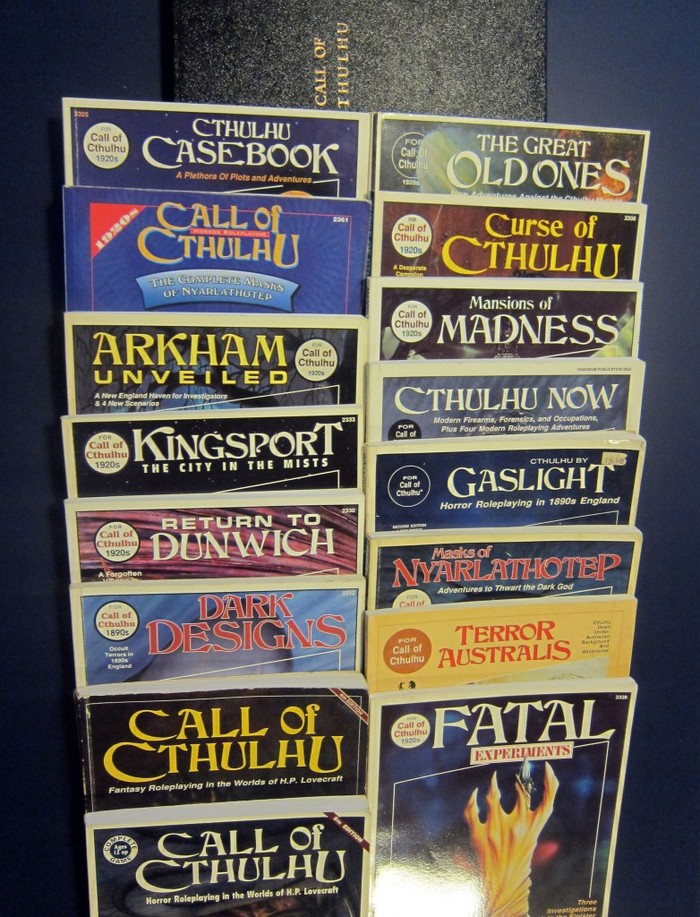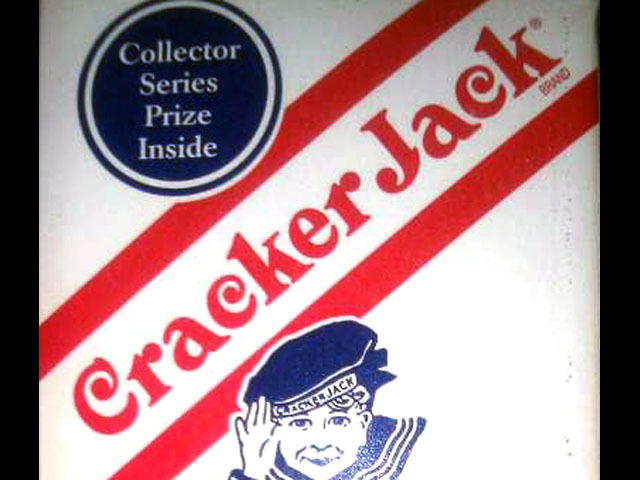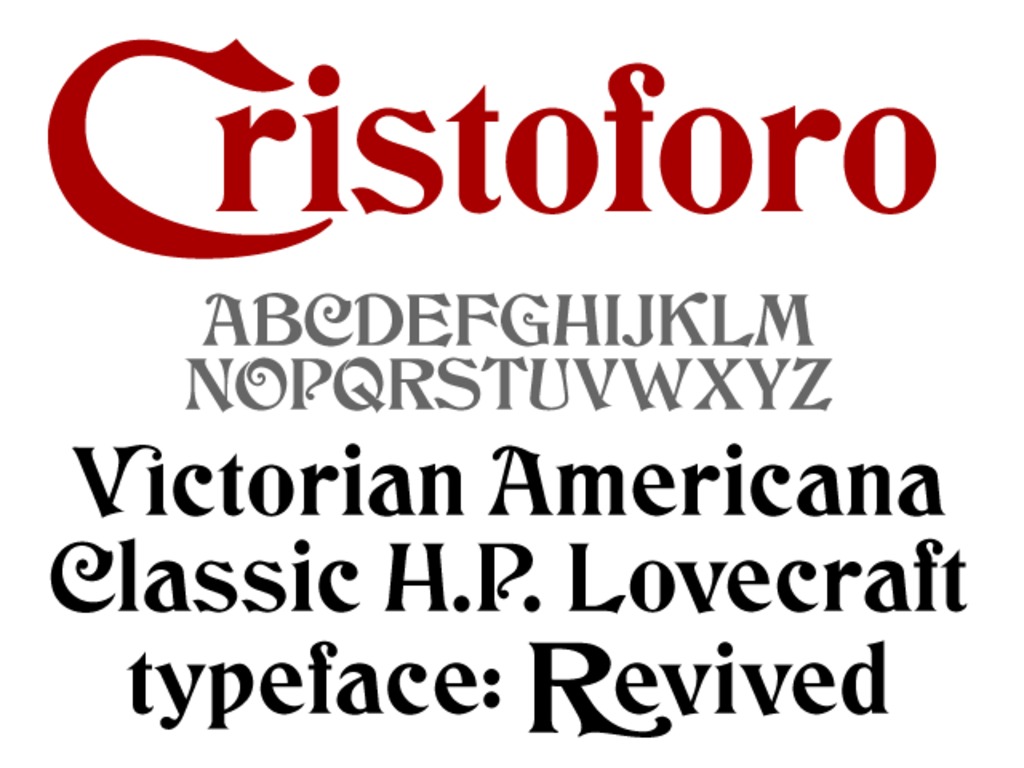
Revival of Ihlenburg's Columbus (1892) and American Italic (1902) typefaces, never before made into quality digital fonts.
Cristoforo is my name for a pair of new fonts reviving classic American-Victorian art nouveau metal types by Hermann Ihlenburg: Columbus (1892), Columbus Initials (upright swash capitals) and the italic companion American Italic (1902). Cristoforo Regular will have some 300+ glyphs. You can see specimens of the source typefaces on my blog.
Why is Cristoforo needed?
Columbus and American Italic were classic typefaces by a master craftsman. But there's never been a decent digital version of these fonts. With Cristoforo, I want to make a pair of professional quality digital fonts, complete both in standard character coverage and in having many assorted alternate letter shapes. (For example, the graphic above shows the swash alternate versions of C, V and R originally available in Columbus Initials.)
H.P. Lovecraft & Call of Cthulhu
Cristoforo has a huge history here. Its predecessor, Columbus, was the typeface used to create the logo for the Call of Cthulhu roleplaying game, inspired by the horror fiction of H.P. Lovecraft. The Call of Cthulhu RPG first appeared in 1981, and for over a decade Columbus appeared on the covers of not only the game rulebook, but also a couple of dozen supplemental books and adventures. After falling out of use on supplements in the 1990s, it has still continued to be the primary game logo to the present day, with only a couple of brief interruptions. Thus Columbus has an iconic status among many fans of Call of Cthulhu and/or H.P. Lovecraft. The game introduced many to Lovecraft’s fiction. The Call of Cthulhu campaign adventure Masks of Nyarlathotep, which I designed most of the “clues” for, remains the highest-rated campaign or adventure ever published for any role-playing game. Here are a few of the Call of Cthulhu books using Columbus.
Americana & Cracker Jack
Cristoforo also has a key link to classic Americana. Its predecessor, Columbus, was the typeface used as the basis for the original logo for Cracker Jack (the candied peanut and popcorn snack), back in the 1890s. The candy was such a basic part of the baseball stadium experience that it was immortalized in the hit 1908 song, still sung today at most major league baseball games, "Take Me Out to the Ball Game":
Although the logo has since been updated and modernized, the current version still shows the influence of the original letterforms.
Reviving Columbus as Cristoforo excites me partly because it is such a quirky design, also because of the Call of Cthulhu connection, and because I've seen a lot of Ihlenburg's work and think it’s pretty cool. Wild, but cool.
I even have a family connection: my distant cousin Joseph W. Phinney was a vice president and founding partner in American Type Founders, the type foundry trust into which Columbus and its issuing foundry were absorbed in 1892. It was ATF that issued American Italic ten years later. There’s at least one typeface that is credited variously to J.W. Phinney or to Ihlenburg, depending on what source you look at.